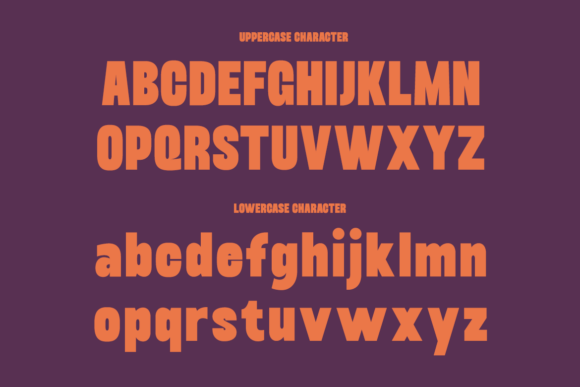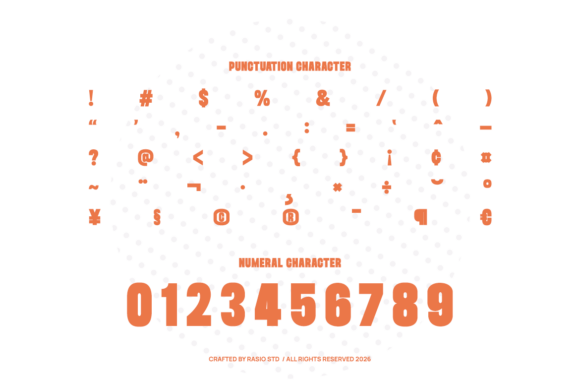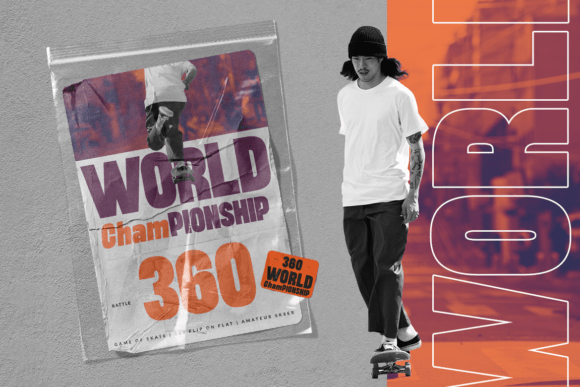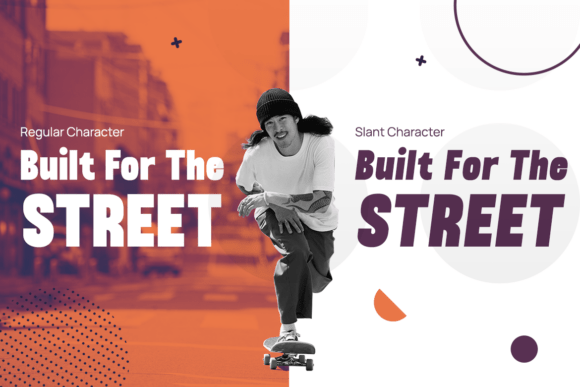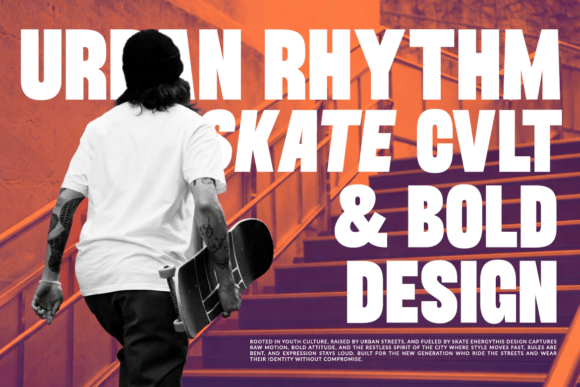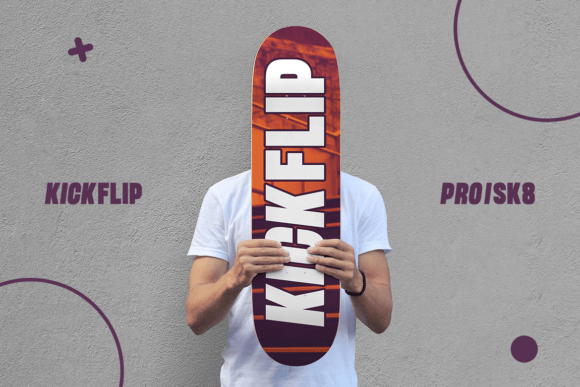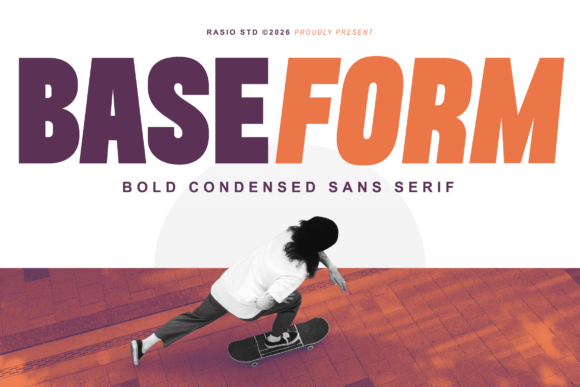
Introducing Baseform Font: The Ultimate Bold Condensed Sans Serif Display Typeface
In the world of typography, a good font can make all the difference in creating a lasting impression. For designers and crafters looking for a bold and impactful font, Baseform is here to take your branding, advertising, and design projects to the next level. Baseform is a bold condensed sans serif display typeface built with strong vertical proportions, compact letterforms, and a confident geometric structure.
Key Features of Baseform Font
So, what makes Baseform stand out from the rest? Here are some of its key features:
• Strong Vertical Proportions: Baseform’s vertical proportions give it a sturdy and robust feel, making it perfect for headlines and large typography.
• Compact Letterforms: The font’s compact letterforms are designed to fit snugly together, creating a solid and cohesive look.
• Tight Spacing: The tight spacing between letters adds to the font’s compact structure, making it ideal for layouts where space is limited.
• Heavy Strokes: The heavy strokes used in Baseform give it a bold and confident look, making it perfect for grabbing attention.
• Distinctive Ligatures: The font’s distinctive ligatures add a touch of uniqueness to the font, creating a solid and impactful rhythm across headlines and large typography.
Use Cases for Baseform Font
Baseform is a versatile font that can be used in a variety of design projects, including:
• Bold Branding Systems: Create a lasting impression with Baseform’s bold and confident look.
• Streetwear Labels: Add a touch of edginess to your streetwear label with Baseform’s compact and impactful design.
• Sports Graphics: Use Baseform to create bold and eye-catching sports graphics that grab attention.
• Posters: Create striking posters with Baseform’s heavy strokes and distinctive ligatures.
• Album Covers: Give your album cover a bold and confident look with Baseform.
• Packaging Design: Use Baseform to create eye-catching packaging designs that stand out on store shelves.
• Modern Editorials: Add a touch of sophistication to your modern editorials with Baseform’s clean and geometric design.
• Advertising Headlines: Create bold and attention-grabbing headlines with Baseform.
• Social Media Campaigns: Use Baseform to create eye-catching social media graphics that grab attention.
Why Choose Baseform Font?
So, why should you choose Baseform for your design projects? Here are just a few reasons:
• Unique and Impactful Design: Baseform’s bold and condensed design makes it perfect for creating a lasting impression.
• Versatility: The font can be used in a variety of design projects, from branding and advertising to packaging and editorial design.
• Easy to Read: Despite its bold and condensed design, Baseform is easy to read, even at smaller sizes.
In conclusion, Baseform is a bold and impactful font that is perfect for designers and crafters looking to create a lasting impression. With its strong vertical proportions, compact letterforms, and confident geometric structure, Baseform is ideal for a variety of design projects. Whether you’re looking to create bold branding systems, eye-catching posters, or striking album covers, Baseform is the perfect choice.